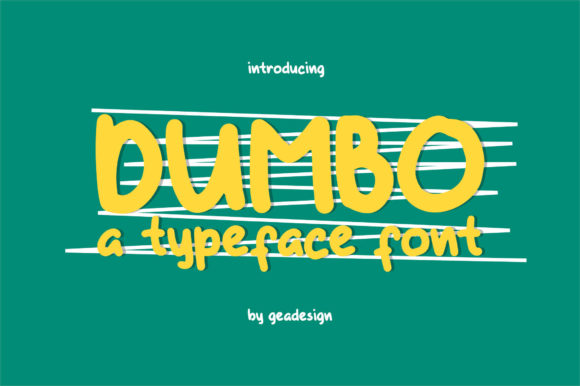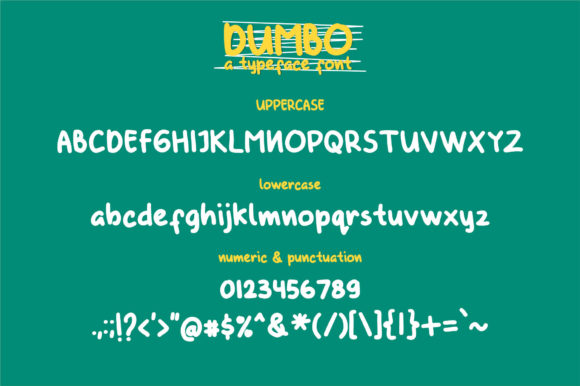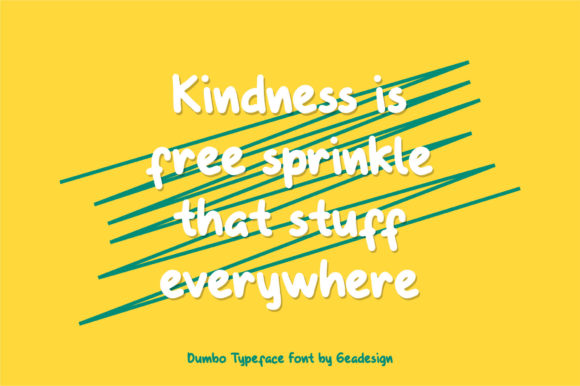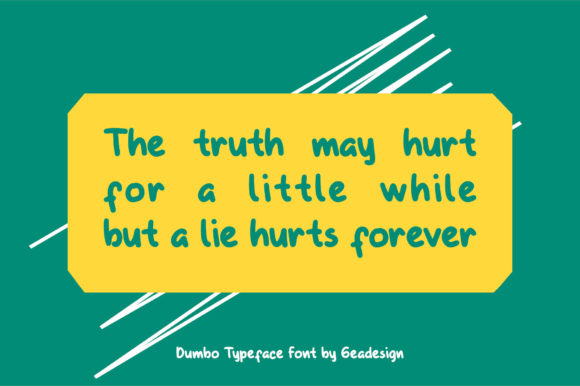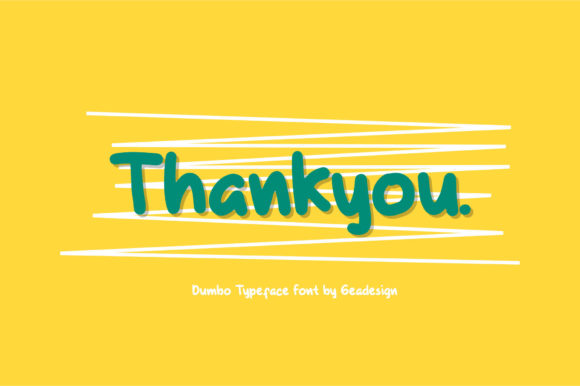
HomeScript FontsDumbo Font Script Fonts Dumbo Font FacebookXPinterestWhatsApp Dumbo Font Poster 2 Dumbo Font Poster 3 Dumbo Font Poster 4 Dumbo Font Poster 5 About Dumbo Font Dumbo is a fun and adorably unique handwritten font with an undeniable charm. DOWNLOAD ON CREATIVE FABRICAThis font is sold and delivered by Creative Fabrica. Font Canyon may earn a commission if you buy through this link. People also explored Skyline Font Grobac Font LaLaRosa Font Hilarious Font Alacrity Sans Font Sunday Anggry Font Bone Jura Font Kachine Font Julia-Victoria Font 397 0 TagsDumbo Font Previous articleLettia FontNext articleWidia Font LEAVE A REPLY Cancel reply Comment: Please enter your comment! Name:* Please enter your name here Email:* You have entered an incorrect email address! Please enter your email address here Website: Save my name, email, and website in this browser for the next time I comment. Personal Use Free Planet Benson 2 Personal Use Free Read more about this font Cottage Personal Use Free Read more about this font Handayani Personal Use Free Read more about this font Shrag Script Personal Use Free Read more about this font BLOG Best Fonts for YouTube Videos: Make Your Thumbnails Stand Out Best Fonts for YouTube Videos: Make Your Thumbnails Stand Out Choosing the right font can make a massive difference in how your YouTube videos perform.... Exploring Font Trends The 10 Best Handwriting Fonts to Add Personality to Your Designs Fonts That Capture the Spirit of New York City